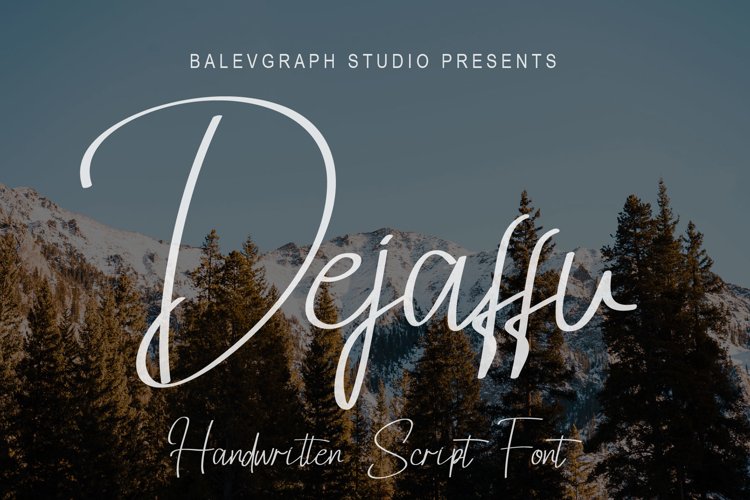
Dejaffu is a calligraphy style font.
Dejaffu would perfect for photography, watermark, social media posts, advertisements, logos & branding, invitation, product designs, label, stationery, wedding designs, product packaging, special events or anything that need handwriting taste.